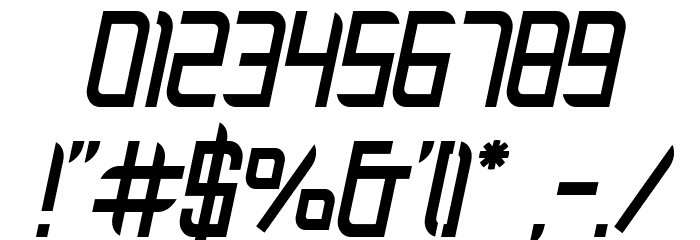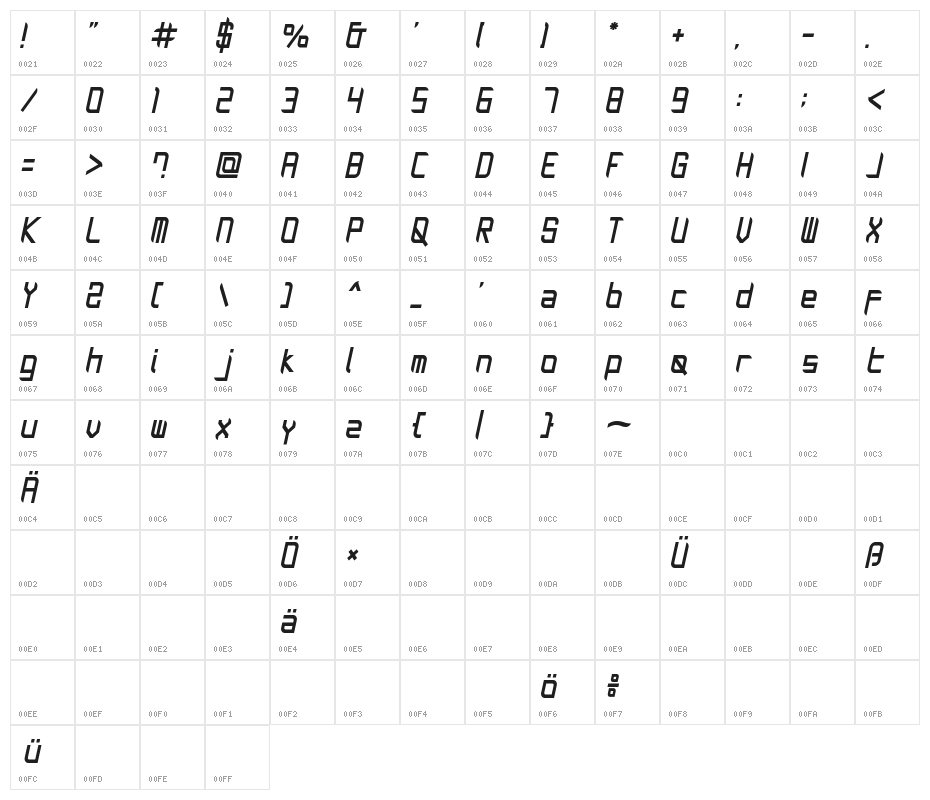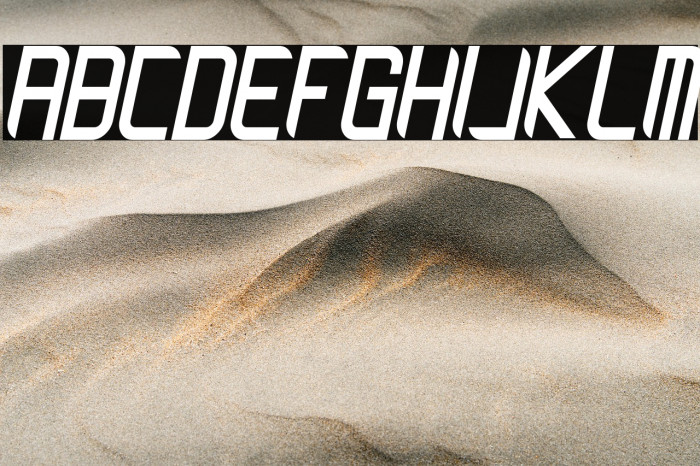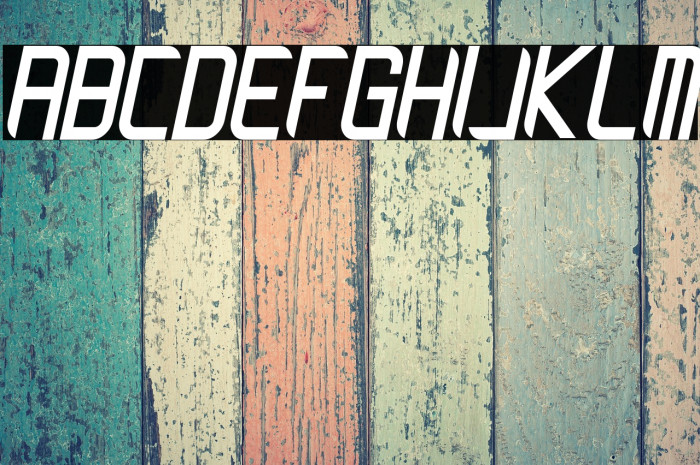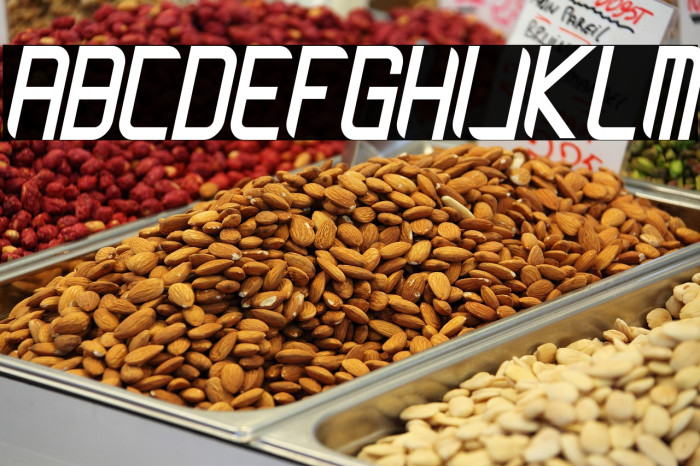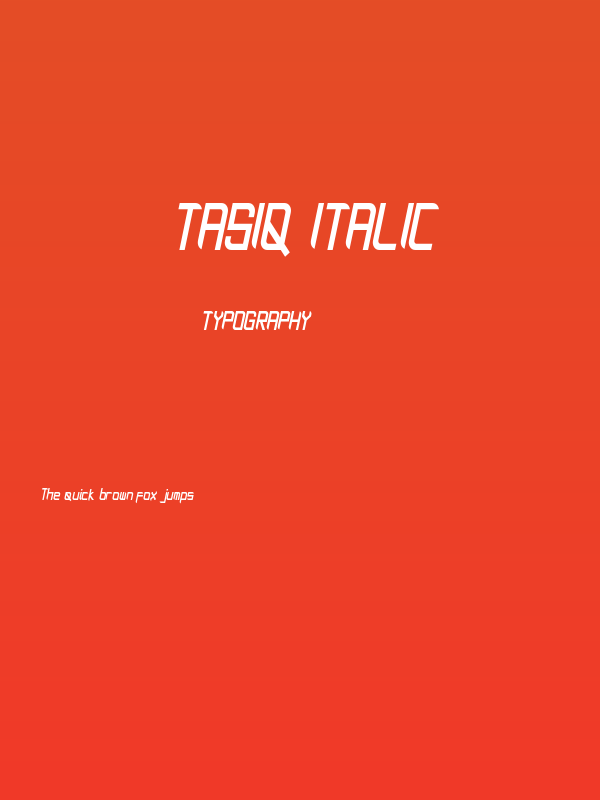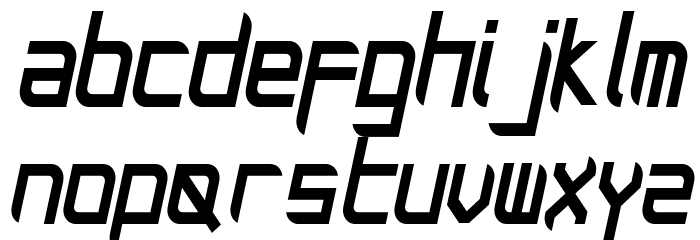
TASIQ Italic Font
TASIQ Italic Description
This font features a modern, angular design with a distinct italic slant, giving it a dynamic and forward-moving appearance. The characters are constructed with sharp edges and clean lines, creating a sense of speed and efficiency. The uppercase and lowercase letters maintain a consistent style, with a uniform stroke width that adds to its sleek look. The numerals and special characters are designed to match the overall aesthetic, ensuring a cohesive appearance across all text. This font's contemporary style makes it suitable for projects that require a bold and assertive visual impact.
| Use Case | Logos, Headlines, Branding |
| Proposed Projects | Ideal for branding, sports team logos, automotive designs, and modern advertising campaigns. |